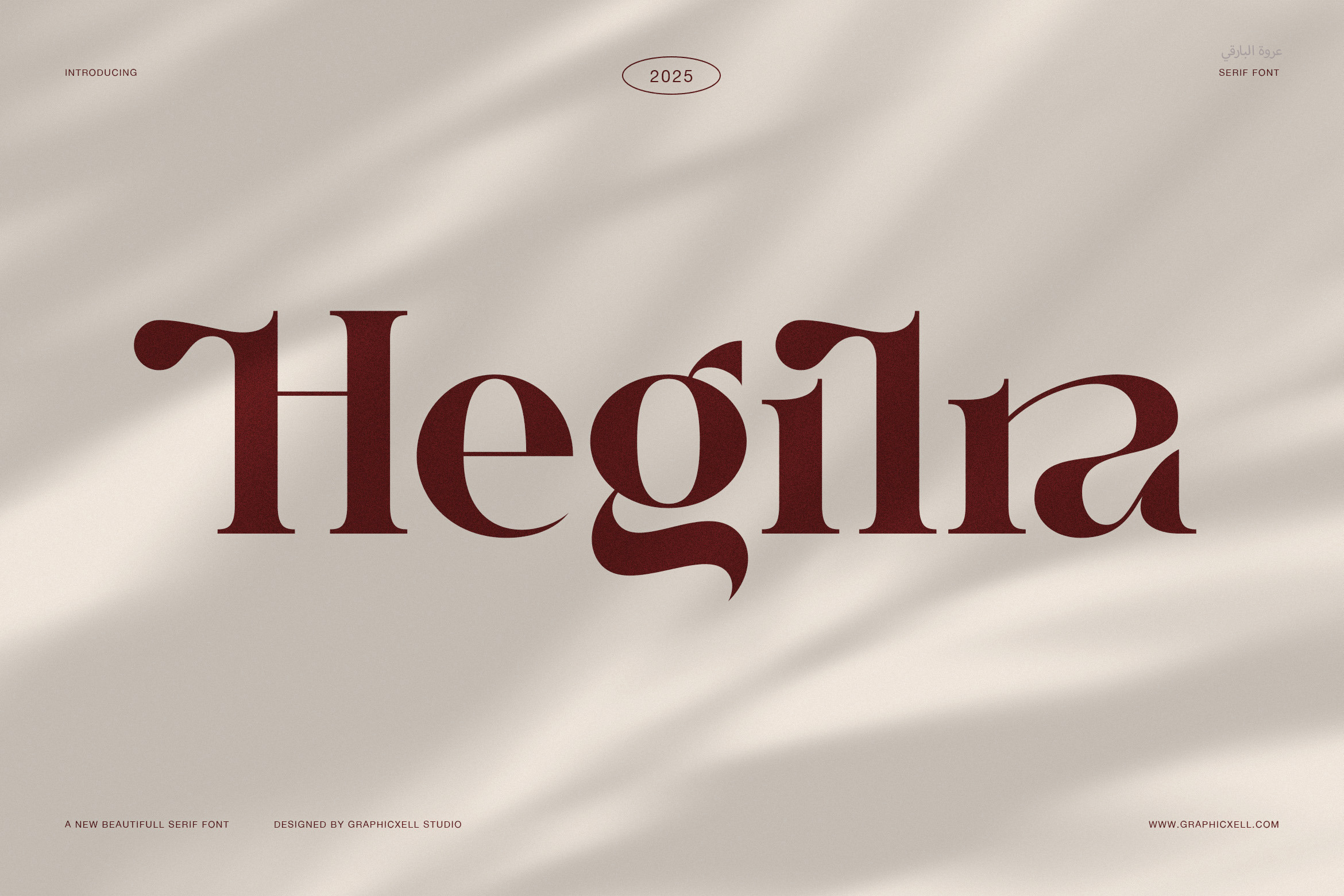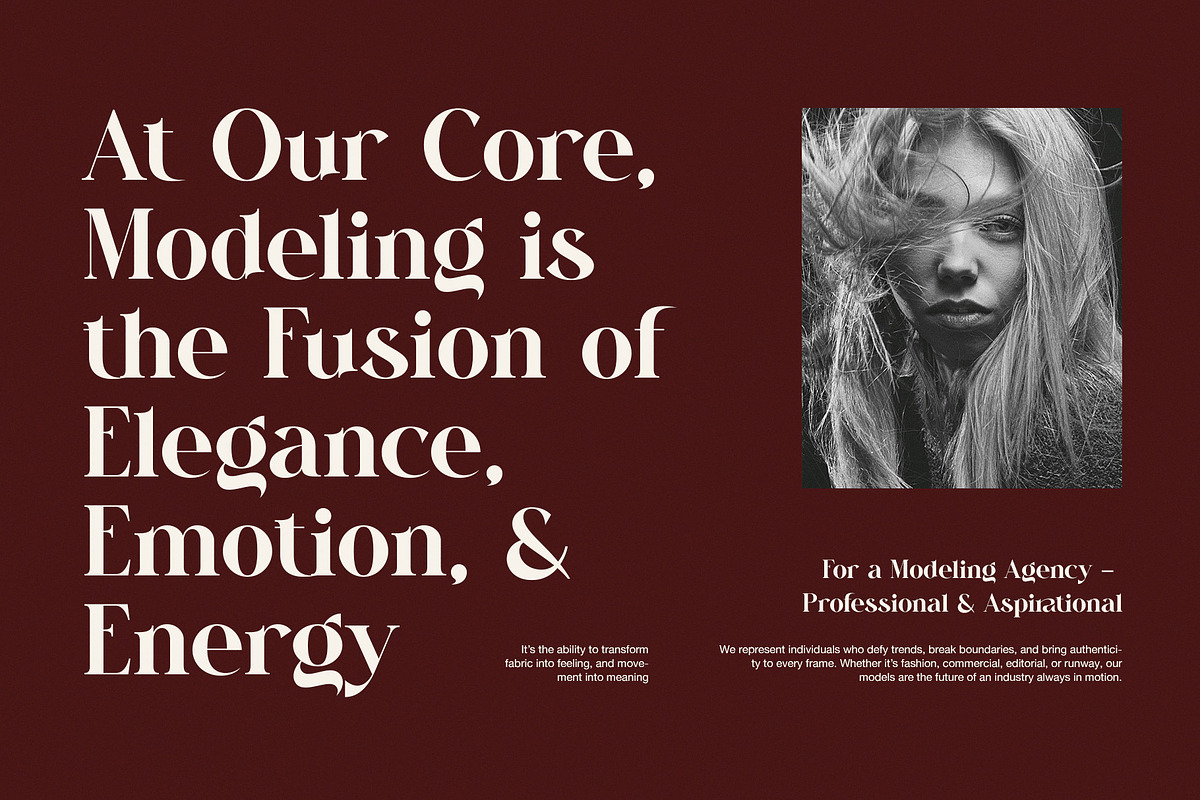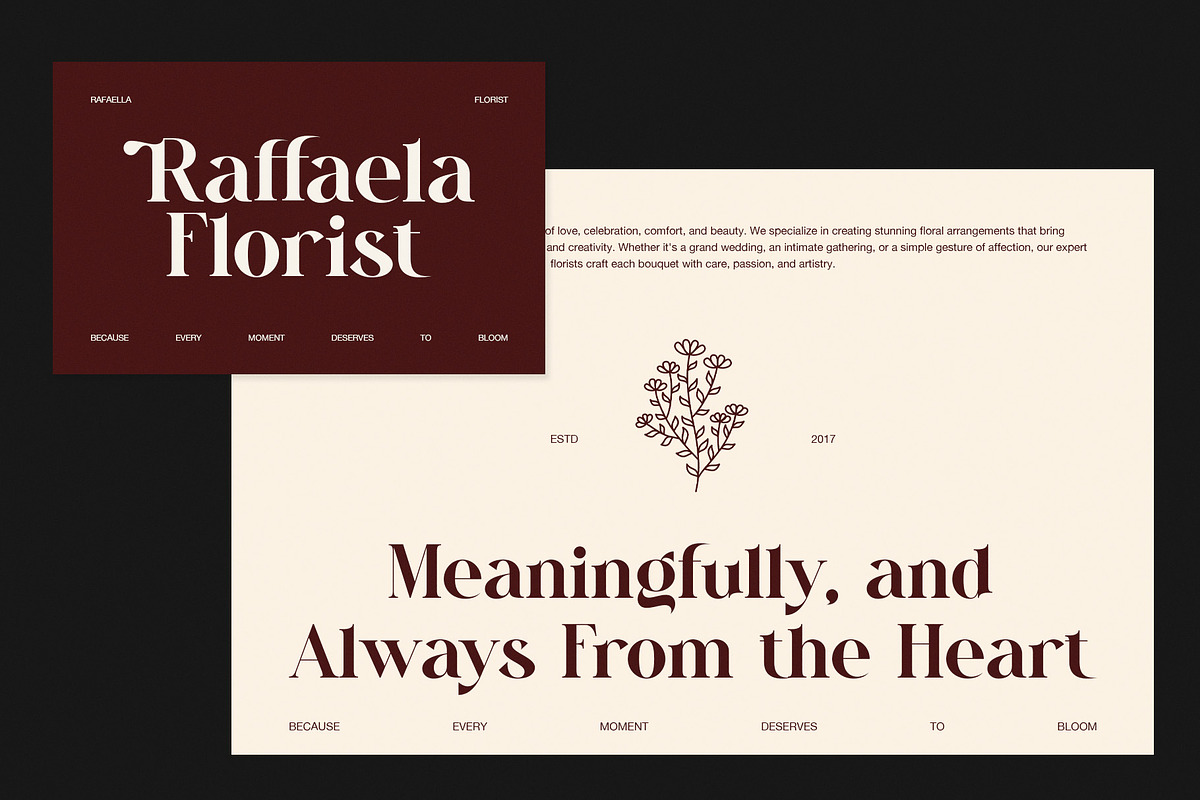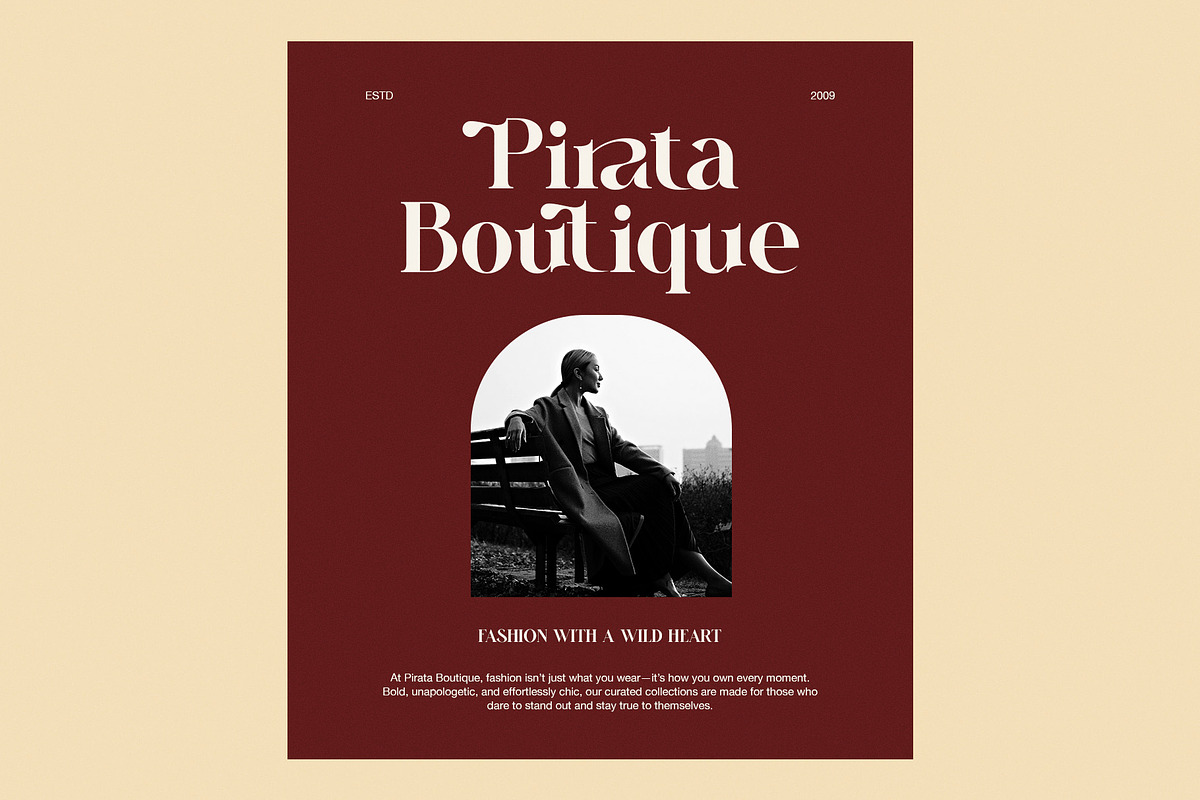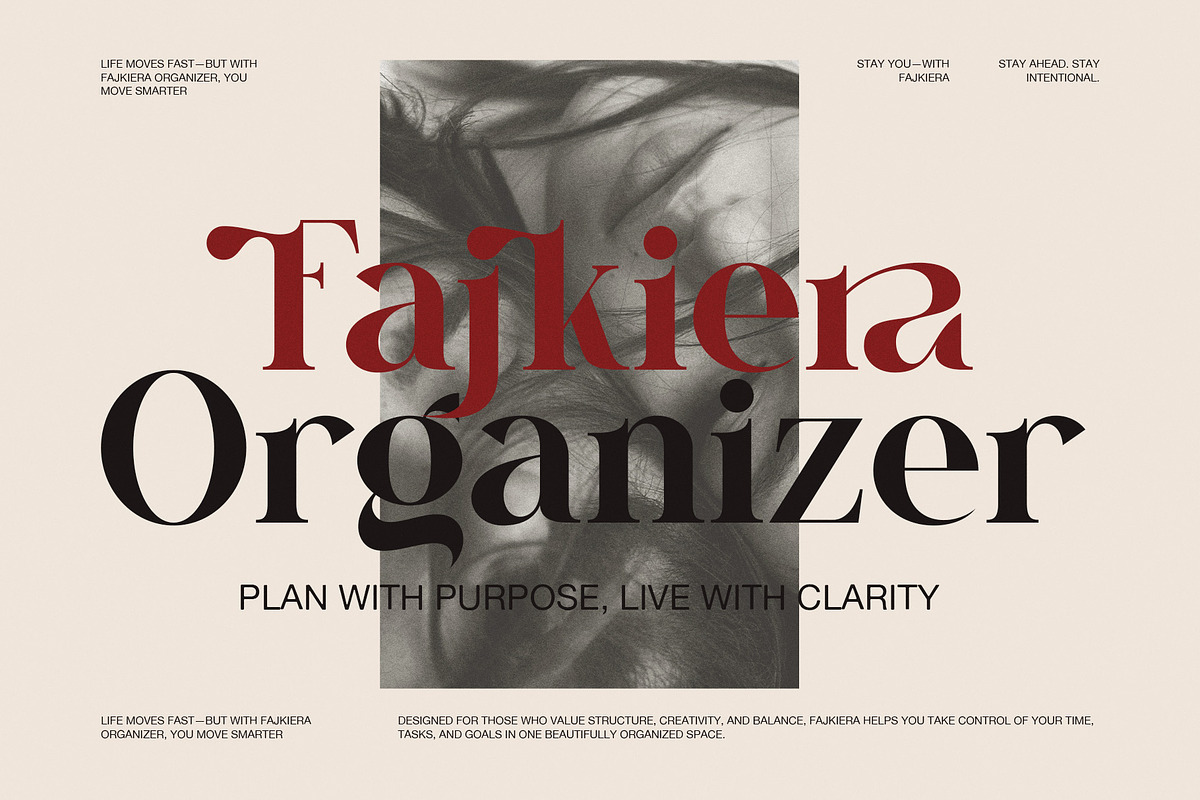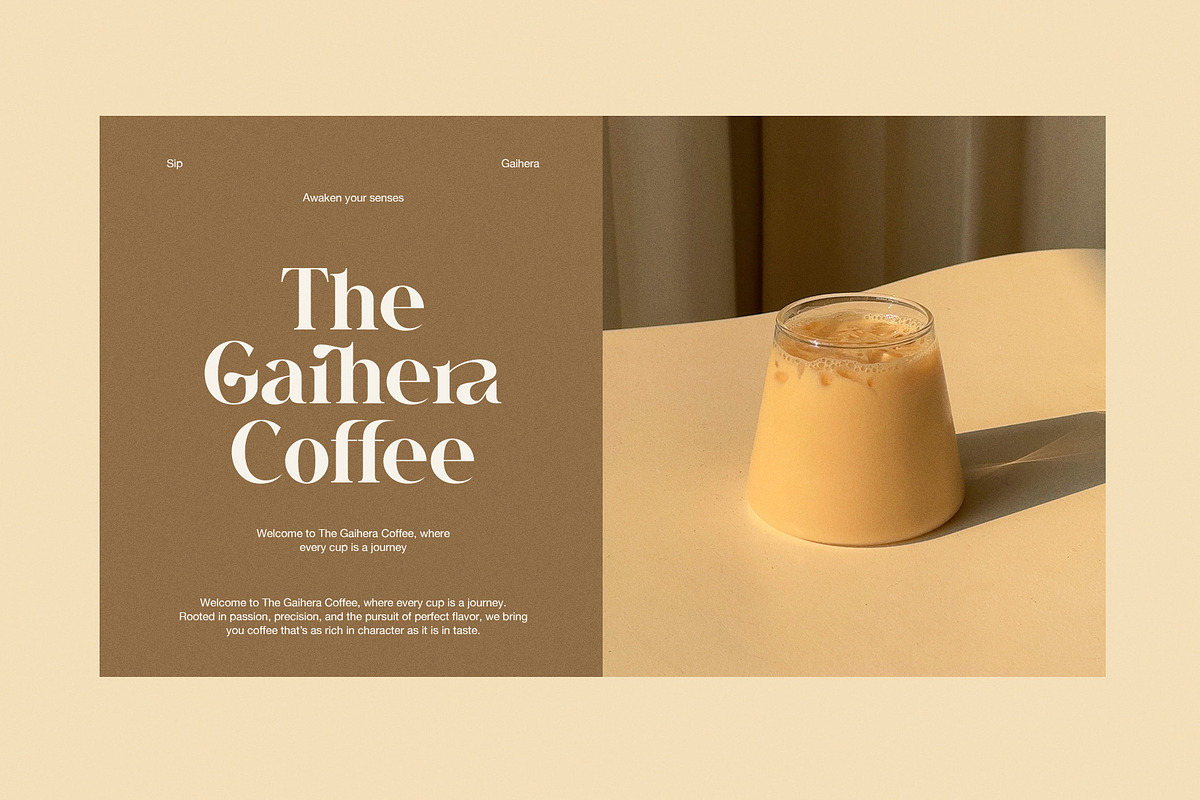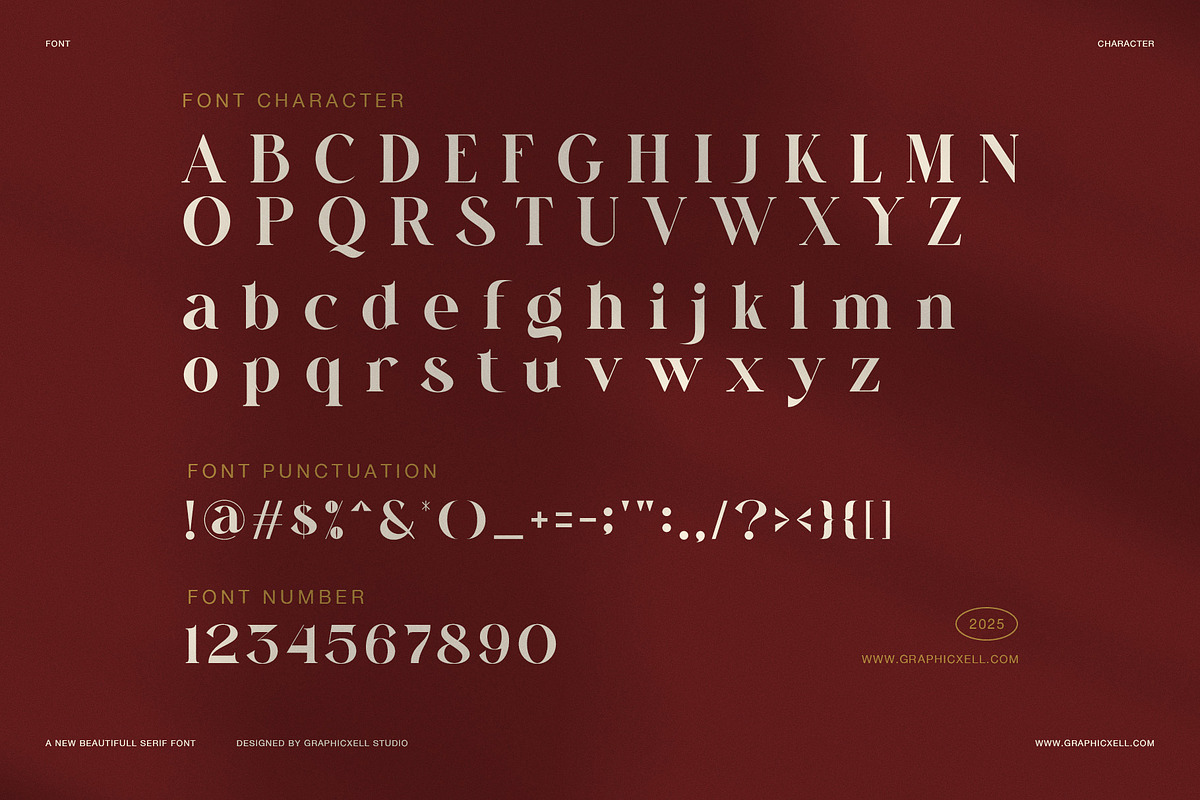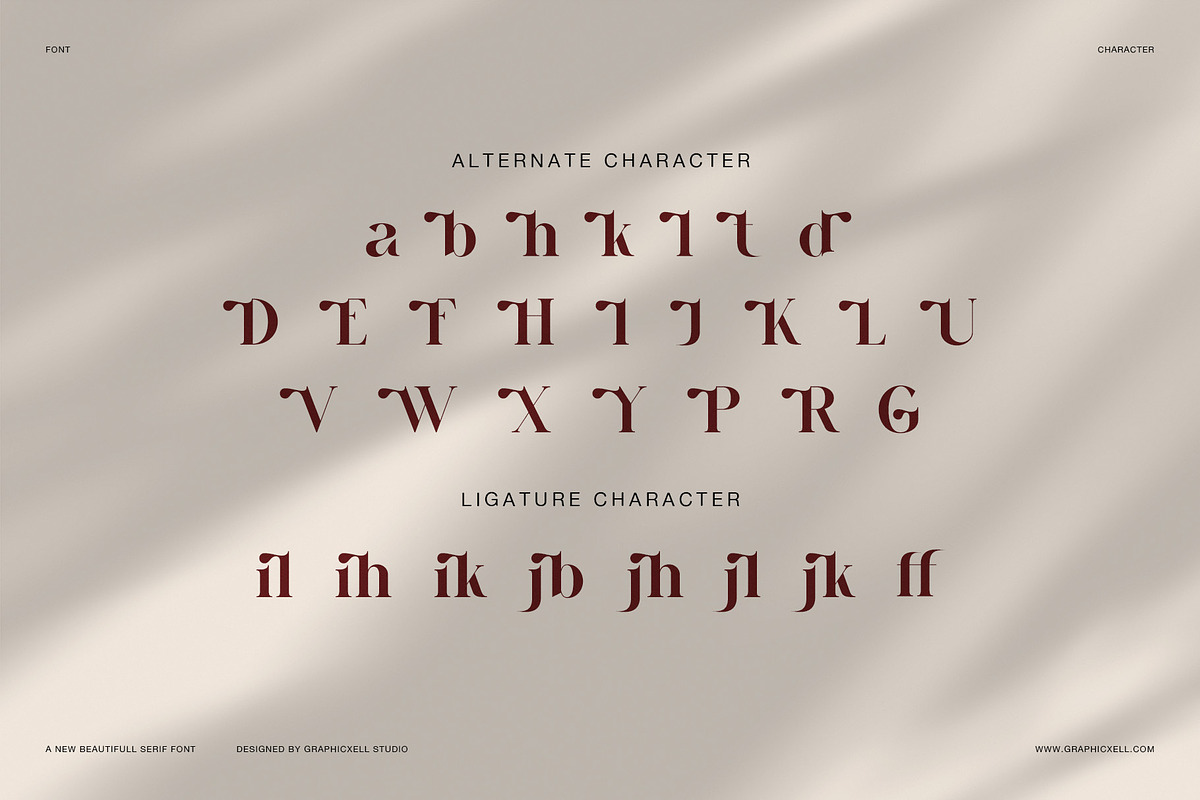
Hegilra – Modern Elegant Serif Font
Hegilra Elegant Serif Font is a clean and graceful typeface that blends classic beauty with a modern touch. It was made for designers who love timeless design and calm elegance. Because of its soft curves and balanced form, Hegilra looks perfect in branding, weddings, packaging, and magazines.
Every letter in Hegilra flows smoothly. The contrast between strokes feels gentle, while the subtle serifs add personality without being bold. As a result, your words appear stylish and easy to read. In addition, its even spacing makes layouts look neat and professional.
Hegilra comes with uppercase and lowercase letters, numbers, punctuation, alternates, and ligatures. It also includes multilingual support, allowing you to use it for many creative needs. Therefore, this serif font works well for global projects that need both beauty and clarity.
You can use Hegilra for:
Brand logos and visual identities
Elegant wedding invitations and stationery
Editorial headlines and magazine layouts
Luxury product packaging and labels
Fashion posters and social content
Because of its smooth rhythm and simple shape, Hegilra brings warmth and balance to your design. It helps you express style without distraction. Moreover, it pairs beautifully with minimal layouts, natural colors, and clean design concepts. The soft edges and natural curves make every word feel calm and confident.
In short, Hegilra Elegant Serif Font turns plain text into art. It’s soft, modern, and versatile. Whether you’re building a luxury brand, designing wedding invites, or creating stylish headlines, Hegilra always adds elegance that feels timeless and true.